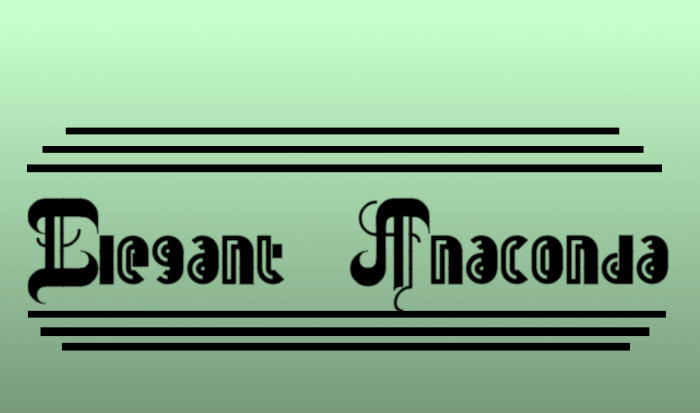
Pretty capitals.
Could be part of the swinging twenties ;)  I think one of the letters has a space problem, N and O have less distance than other letters have with their neighbours
There should be a bit more spacing to the right of the capital N…
Along with Q and D as well…